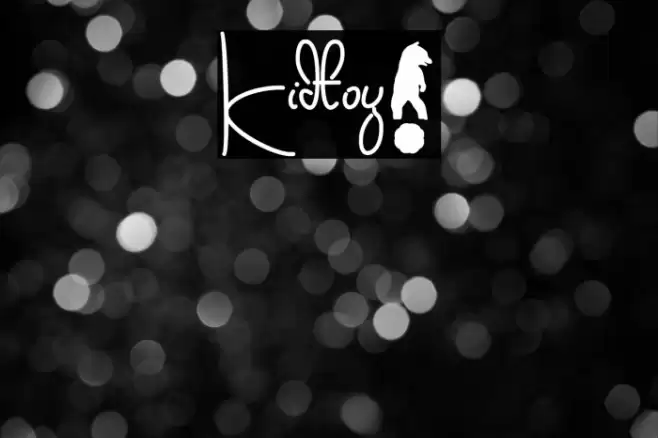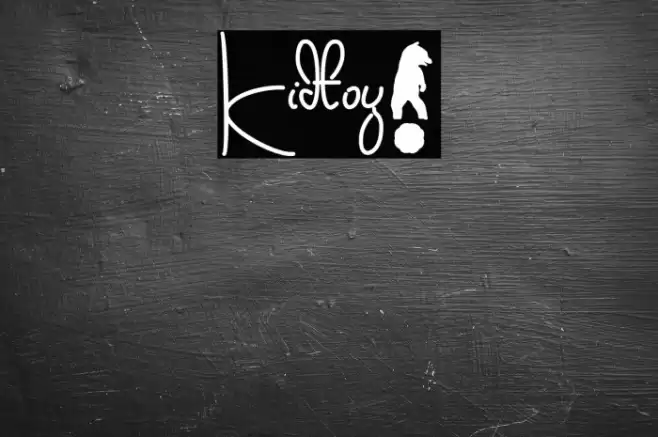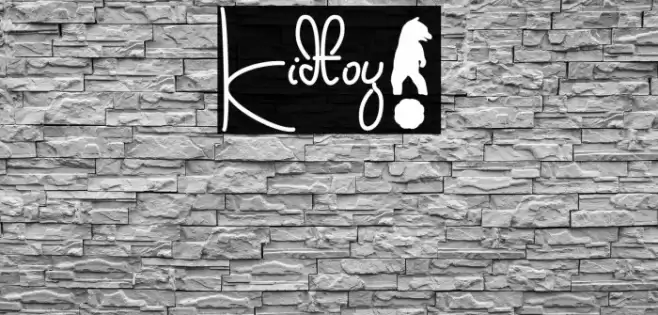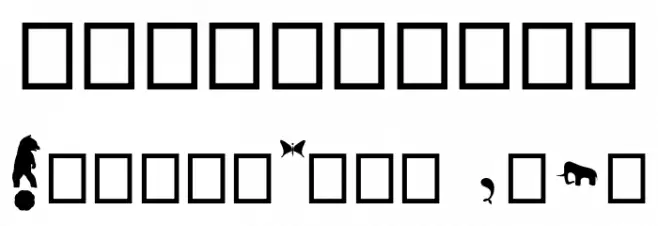
Kidtoy! Font
Kidtoy! Description
This playful and whimsical font features a unique, hand-drawn style with elongated, flowing lines that give it a sense of movement and fun. The uppercase letters are tall and slender, with a slight curve that adds a touch of elegance. The lowercase letters maintain the playful theme with rounded forms and a casual, informal appearance. The font includes a variety of charming special characters, such as a penguin and an elephant, which enhance its playful nature. The overall design is light and airy, making it perfect for projects that require a touch of creativity and imagination.
A playful, hand-drawn font with whimsical, flowing lines and charming special characters from Regular fonts.
- Font: Kidtoy!
- Proposed Projects: Ideal for children's books, playful branding, greeting cards, and creative posters.
- Weight: Light
- Overall Style: Playful
- Use Case: Headlines, Logos, Creative projects